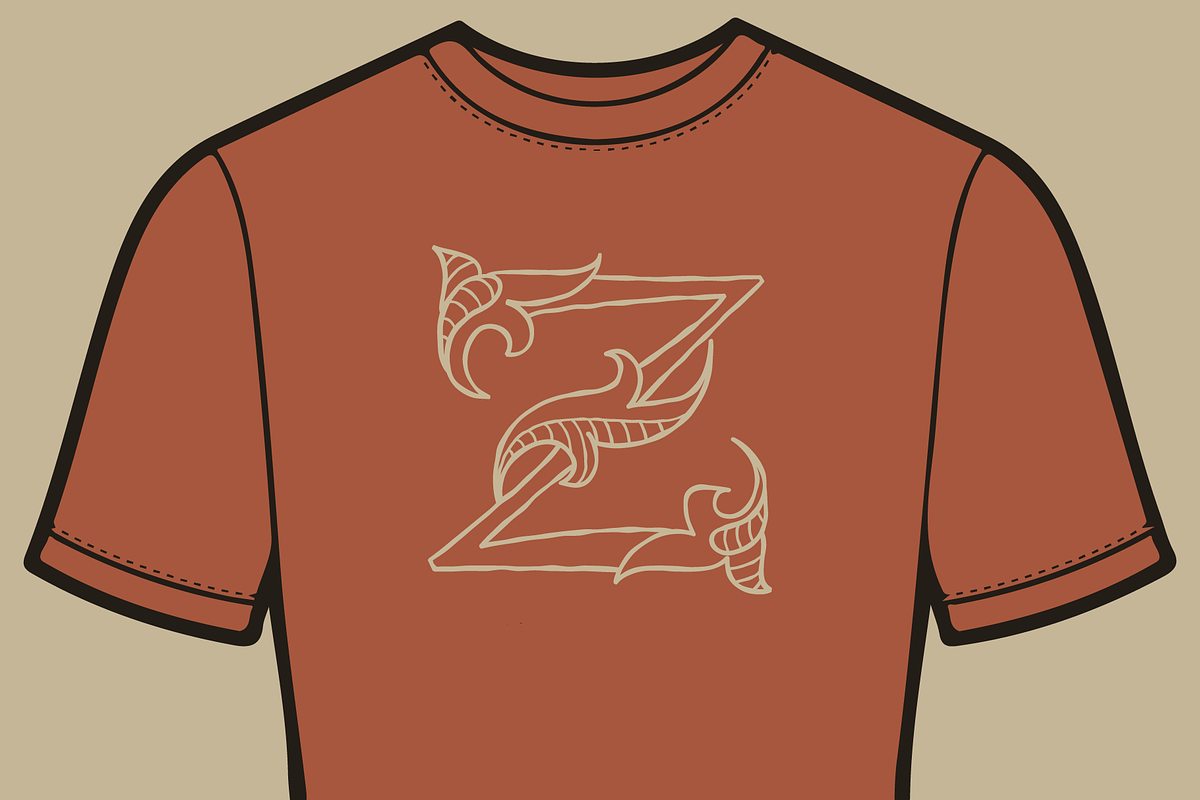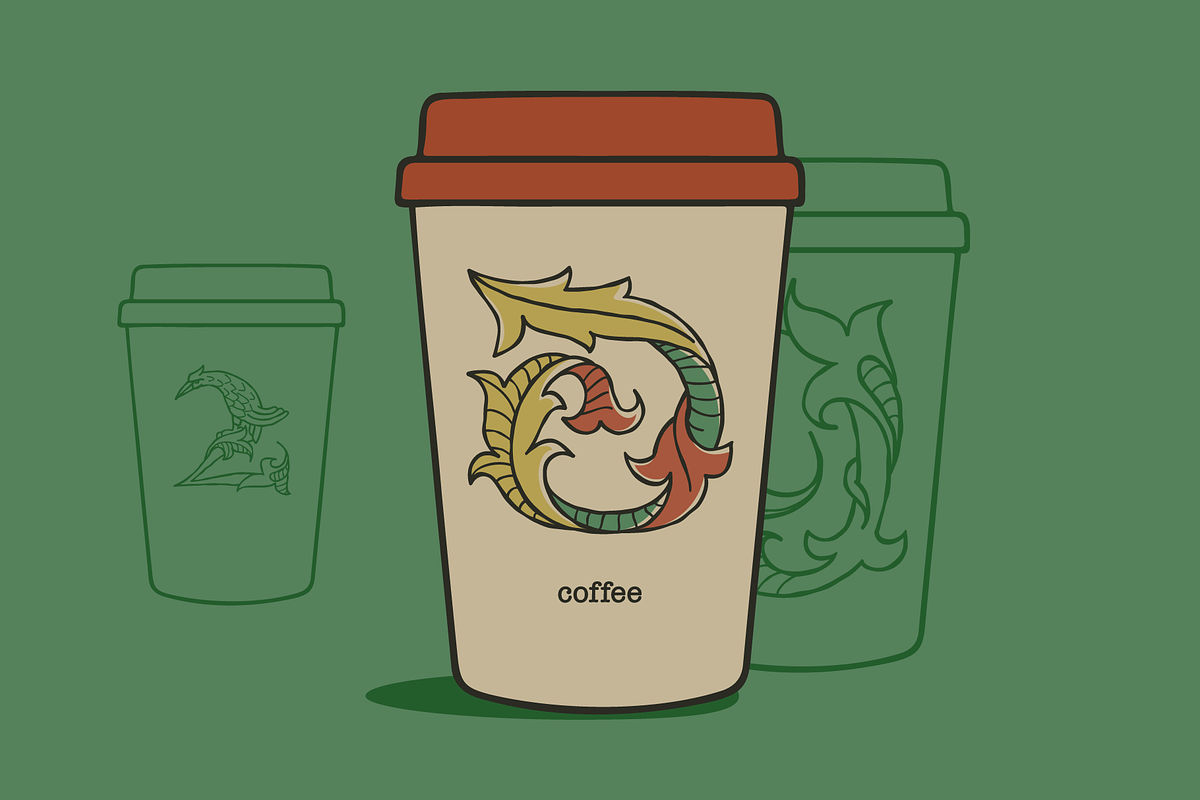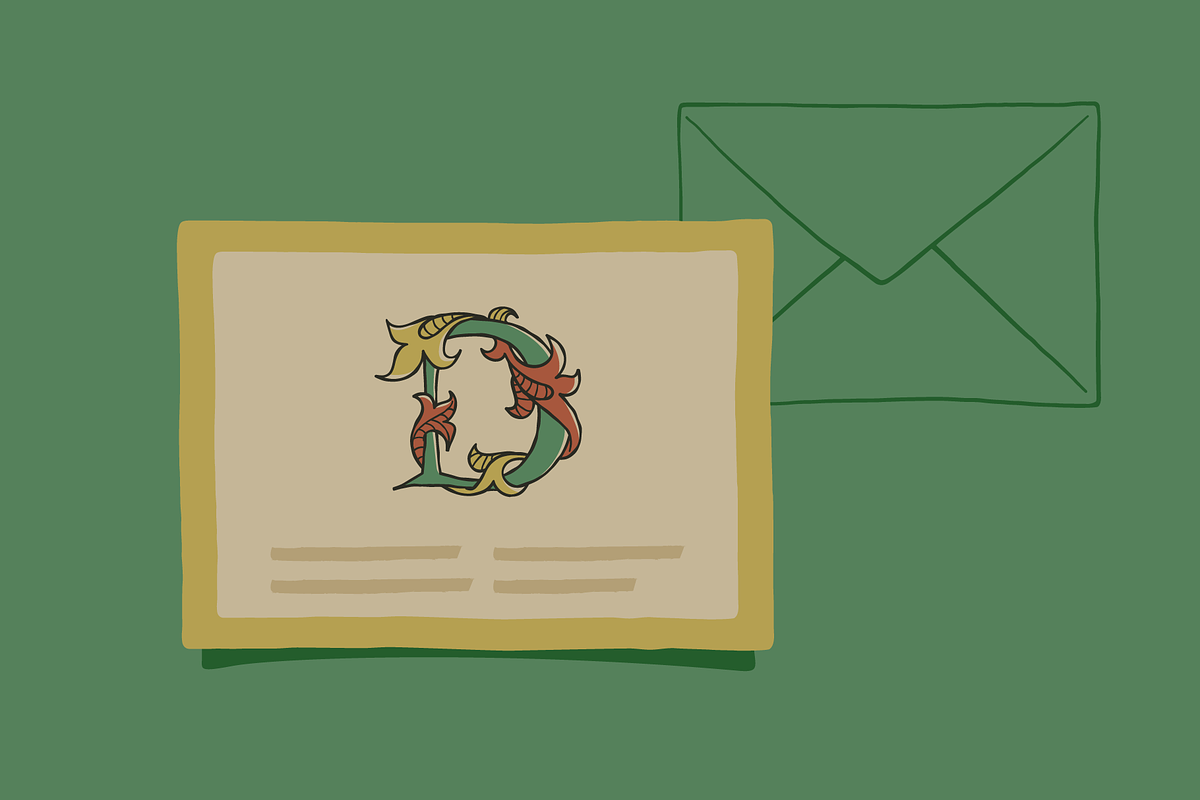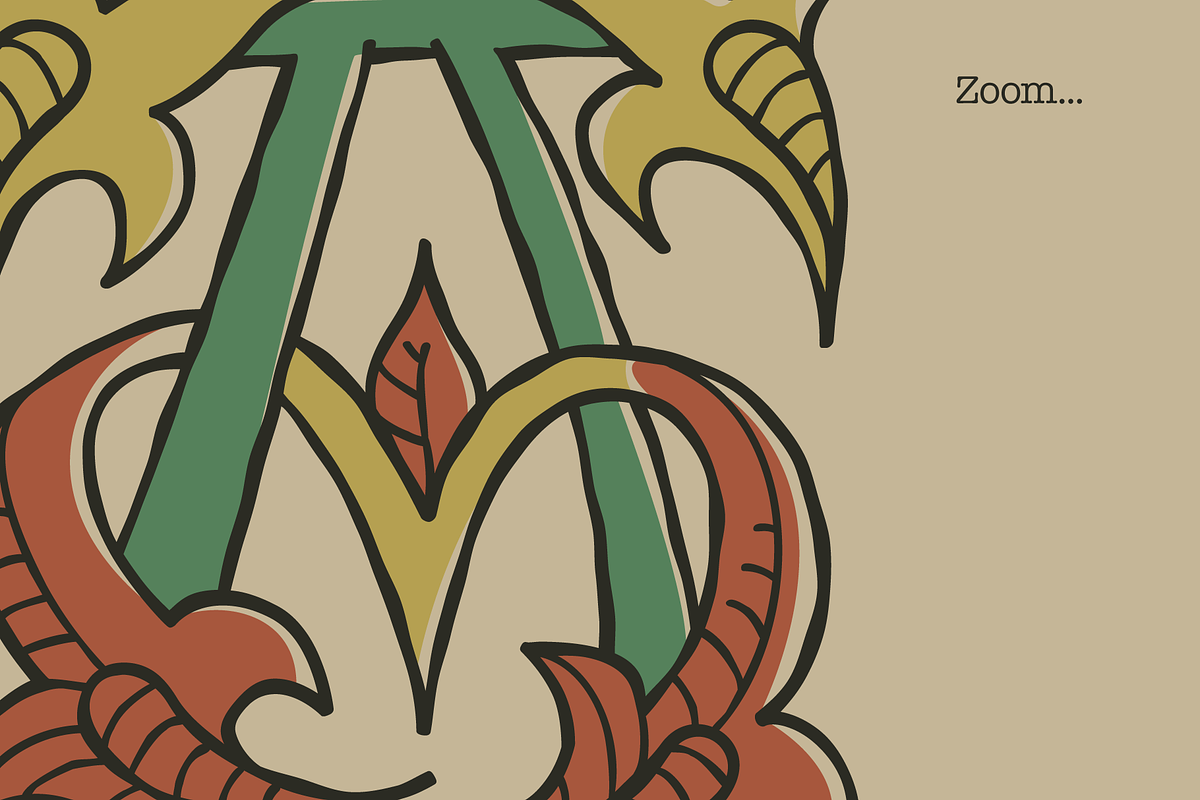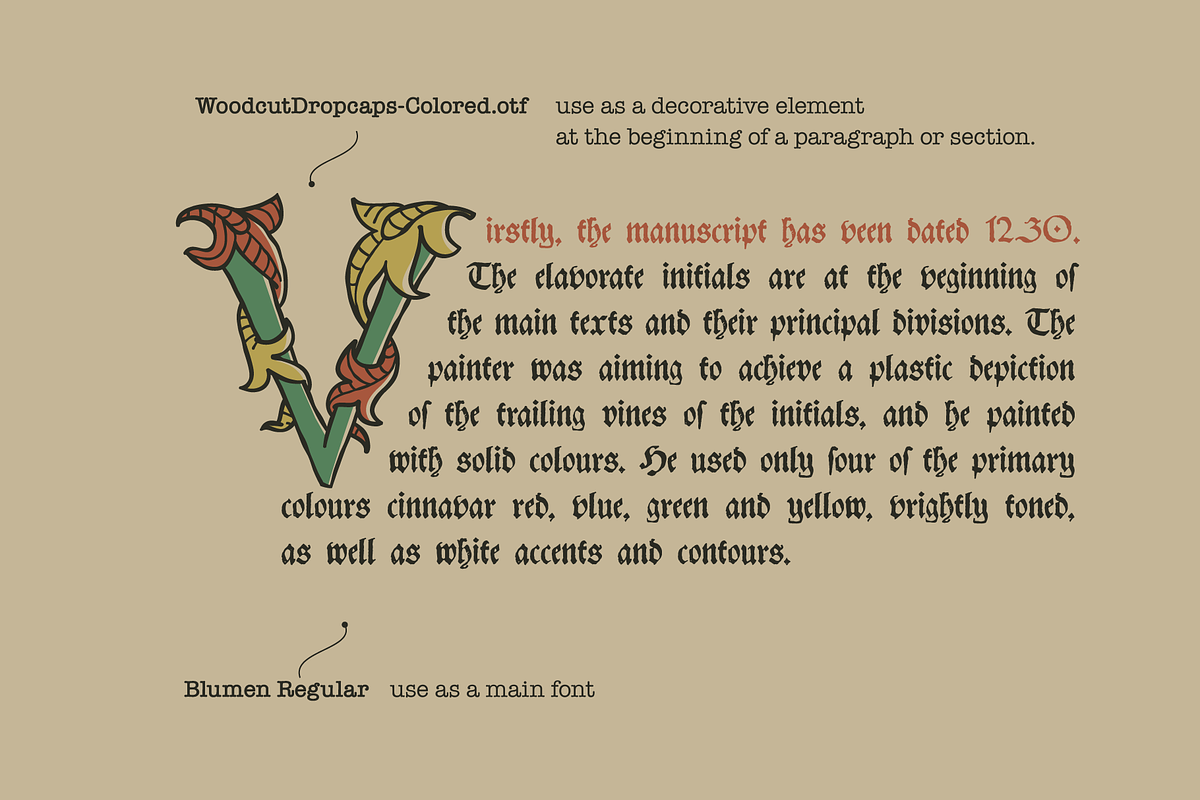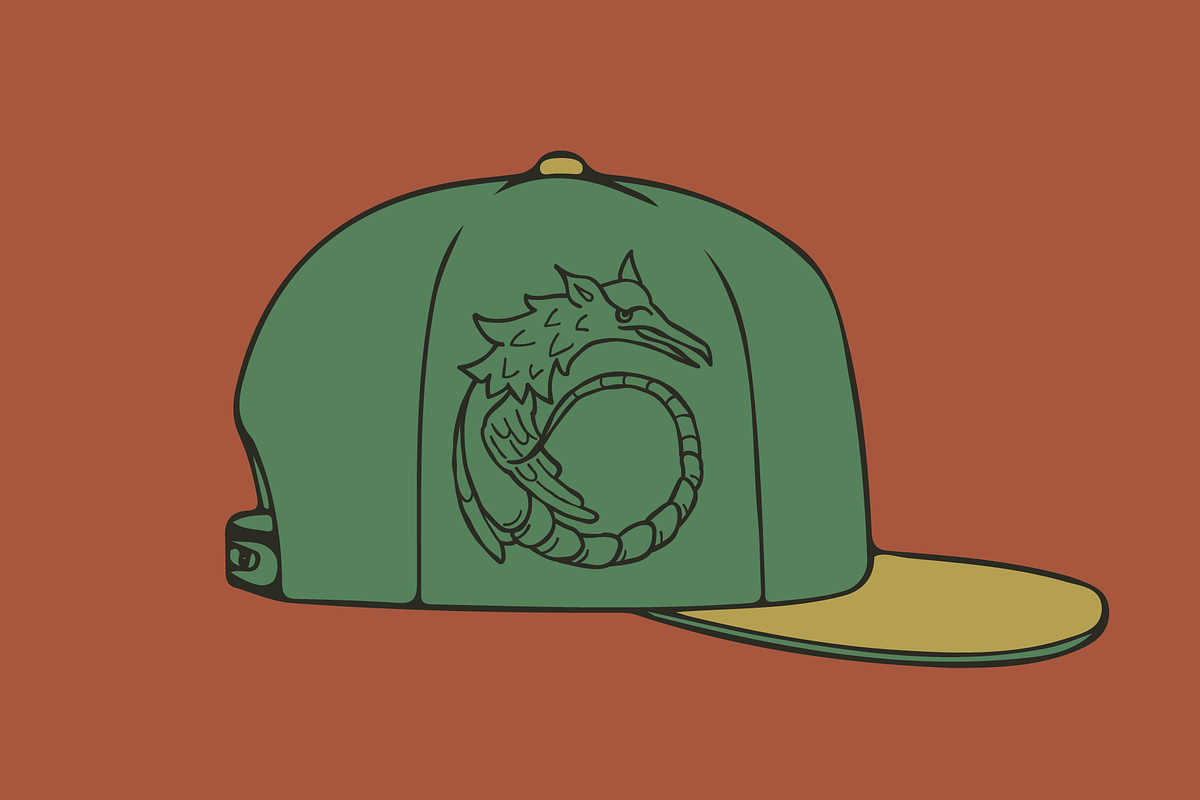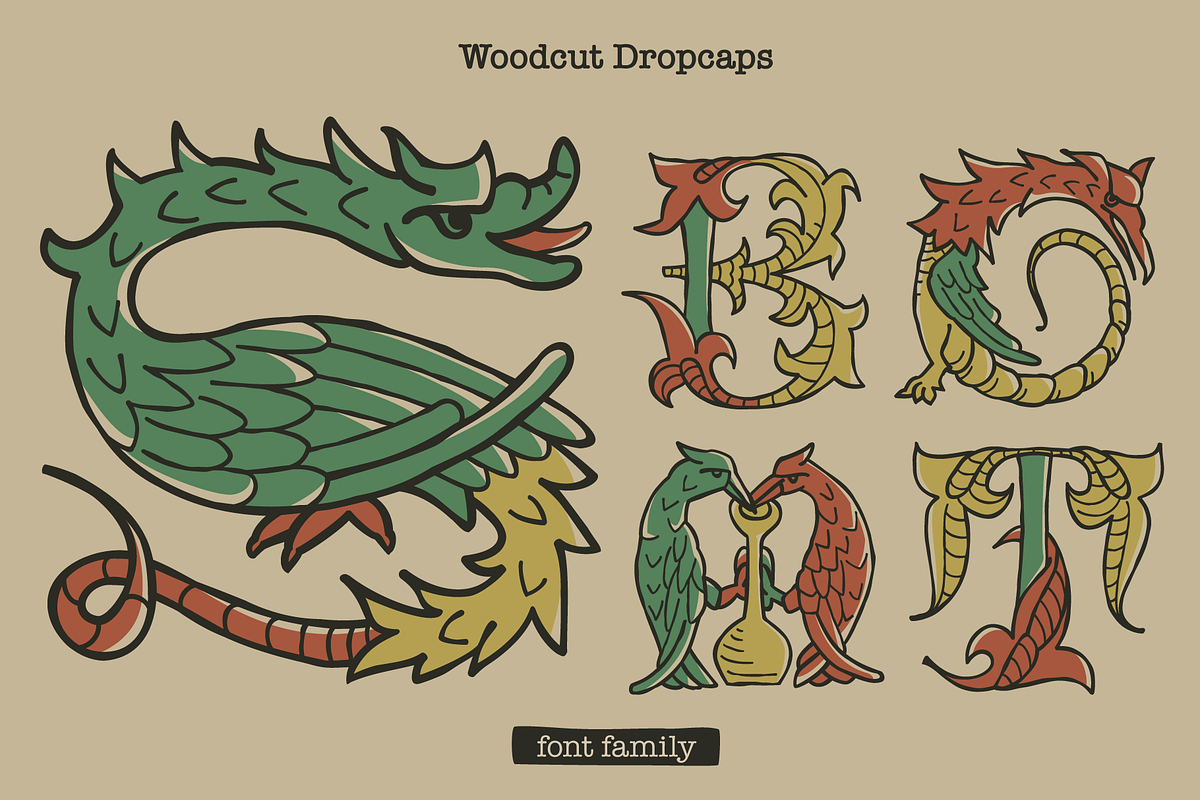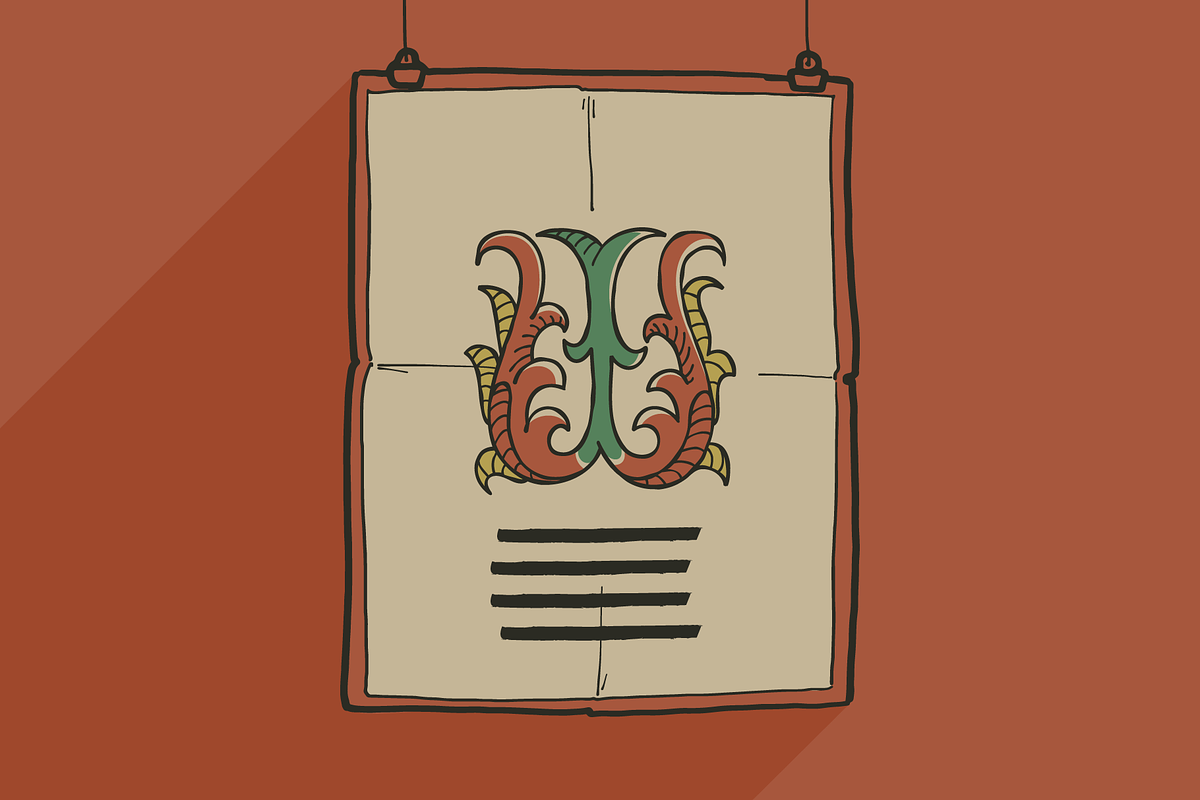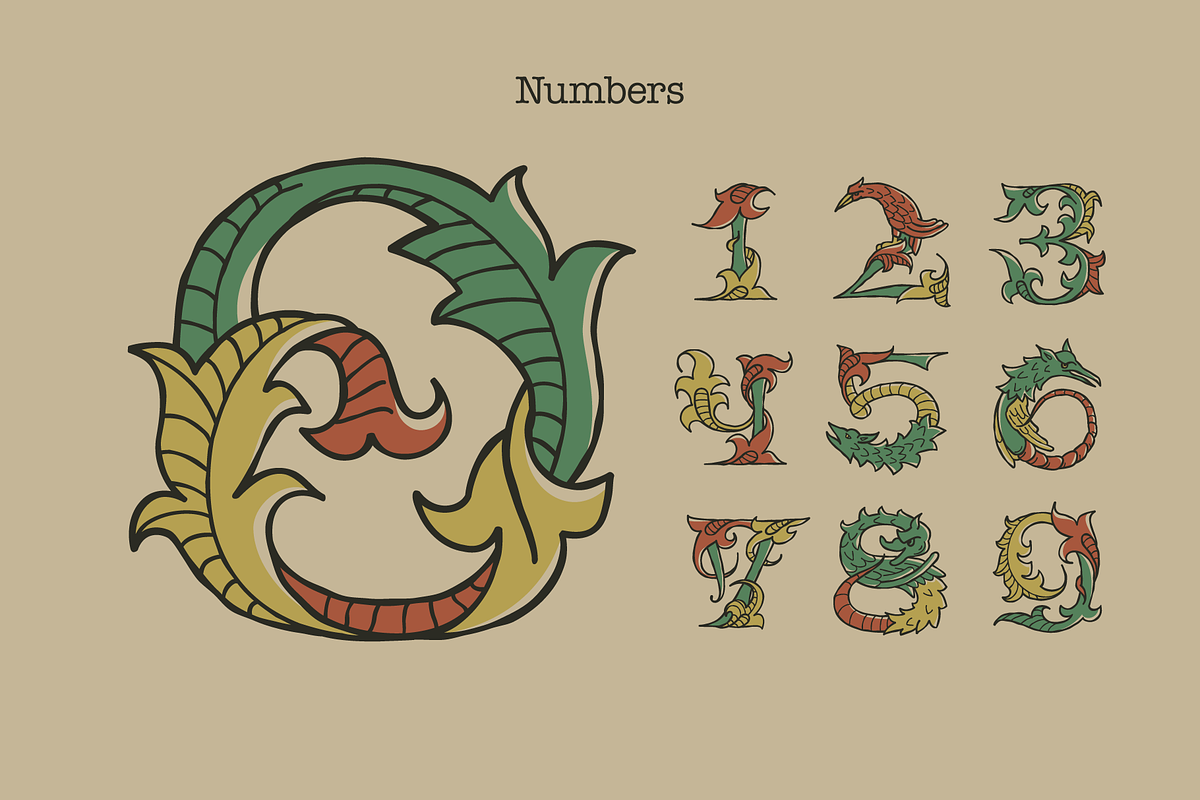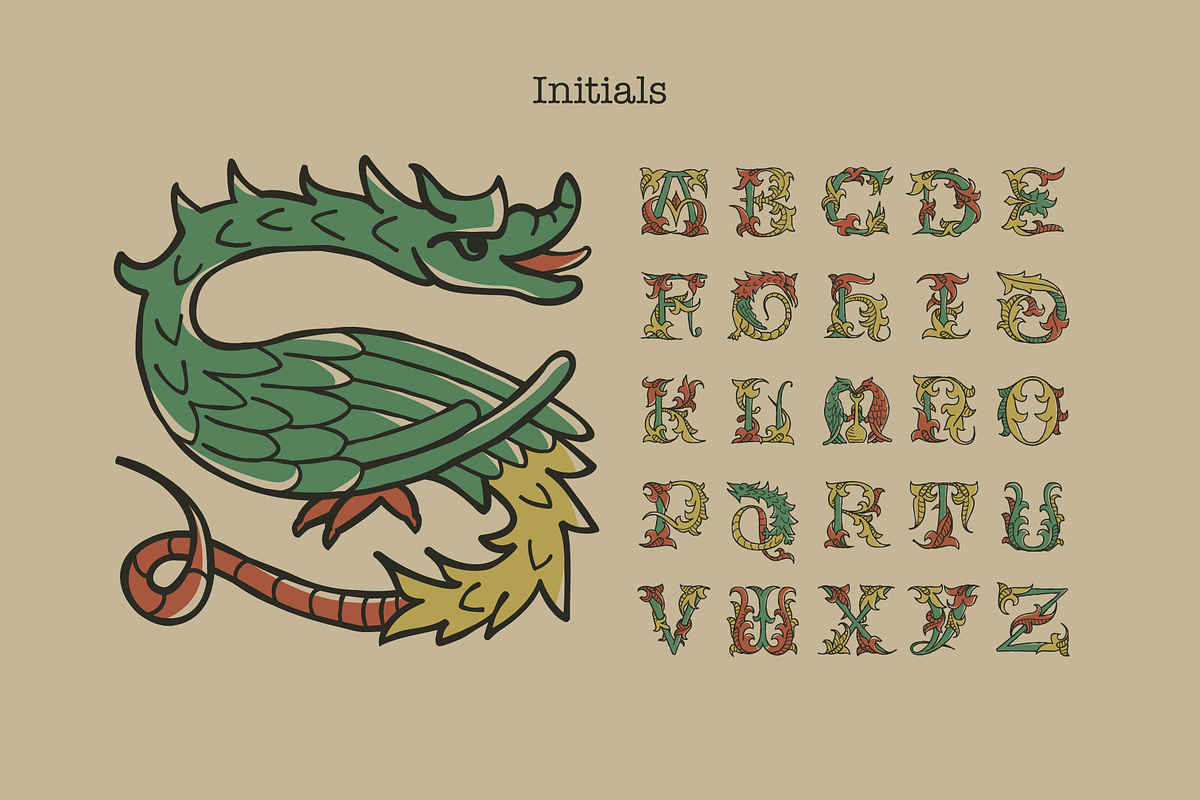
Woodcut Dropcaps
For the first time, "De claris mulieribus whitch" means "About Famous Women" was printed in Latin in the German city of Ulm in the printing house of Johann Zeiner in 1473.
Woodcut engravings open chapters: organize the text and set the structure of the book. In a copy from my collection, they are hand—painted in watercolor - this is a rarity, not all surviving editions are made in color.
All illustrations appeared in the book carry an important semantic load, help to understand and remember the plot, and do not serve only as decoration. For example, the letter "S" in the form of a tempting serpent depicts the scene of the fall of Adam and Eve.
I'm happy to present to you my version of this amazing dropcaps set.